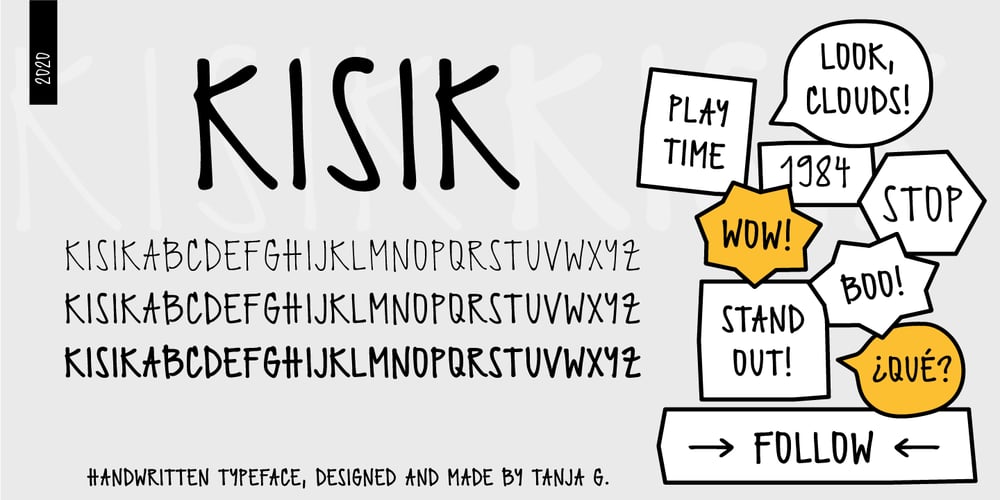
Kisik
Kisik font
Kisik Font Family was designed by Tanja Gawish and published by Kisla. Kisik contains 3 styles and family package options. Kisik is a handwritten font. I got a request to put my handwriting into a font, so I decided to take the challenge and design a whole typeface with three different weights (light, regular, bold) and 638 glyphs to cover all 104 Latin languages. This is my first time making a font. Hope you’ll enjoy it. I sure did making it.Check out the listing of glyphs if you can use this font in your work. Otherwise don’t hold back writing to tanjagawish@gmail.com and I’ll create them.